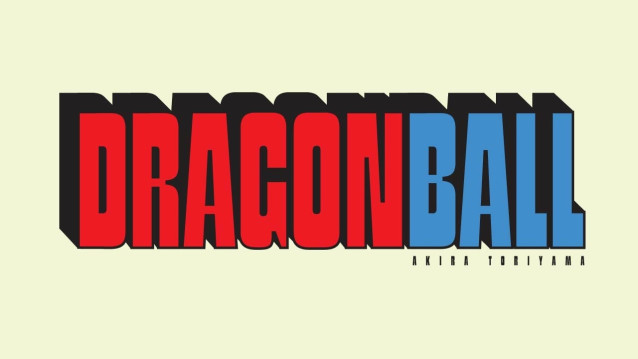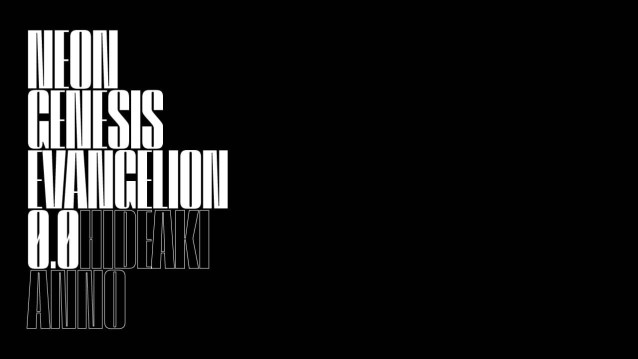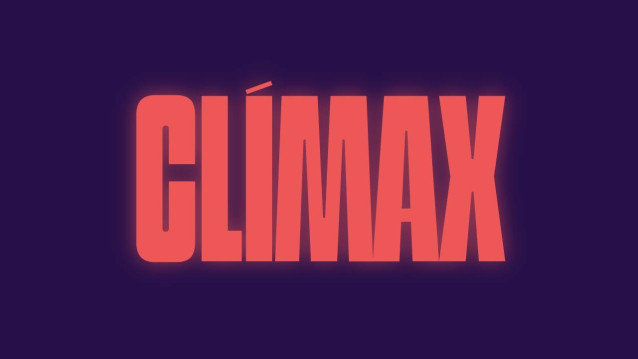
Climax Font Family by Replicante is a variable contrast sans-serif typeface, inspired by fictional audiovisual productions. With its striking geometric forms and dynamic letterforms, this font embodies the energy and excitement of high-stakes narratives, from blockbuster movies to gripping TV series.
The design features sharp, angular cuts and varying stroke weights, creating a sense of tension and move-ment that mirrors the climactic moments found in storytelling. It’s the perfect choice for any project that aims to captivate audiences with its dynamic and engaging presence.
Whether used for movie posters, title sequences, or promotional materials, Climax brings a cinematic quality to your designs. Its versatile structure allows it to adapt seamlessly to various contexts, from sleek logos to bold headlines, ensuring it remains impactful across different applications.
Climax Font Family